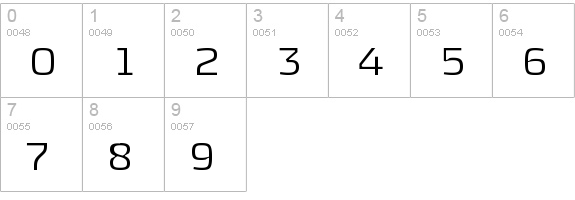
Kontrapunkt Light Font Details
Kontrapunkt Light is a refined, elegant variant in the Kontrapunkt typeface family \xE2\x80\x94 well suited to elegant body text, refined sub-headings, and luxury branding.
Kontrapunkt Light is a modern and elegant sans-serif font that exudes sophistication and simplicity. With its clean lines and balanced proportions, this typeface is perfect for conveying a sense of professionalism and clarity in your design projects. The light weight of Kontrapunkt adds a touch of delicacy and refinement to any text, making it ideal for use in editorial layouts, branding materials, and digital interfaces. What sets Kontrapunkt Light apart is not just its aesthetic appeal, but also its versatility. Whether used for body text or headlines, this font maintains excellent readability and legibility across various mediums. Its subtle elegance and timeless design make it a versatile choice for a wide range of applications. And the best part? Kontrapunkt Light is available for free download at FontsMarket.com. Now you can elevate your designs with this sophisticated typeface without having to worry about any additional costs. Don't miss out on this opportunity to enhance your projects with the refined charm of Kontrapunkt Light. Download it today and start creating beautiful and impactful designs effortlessly.